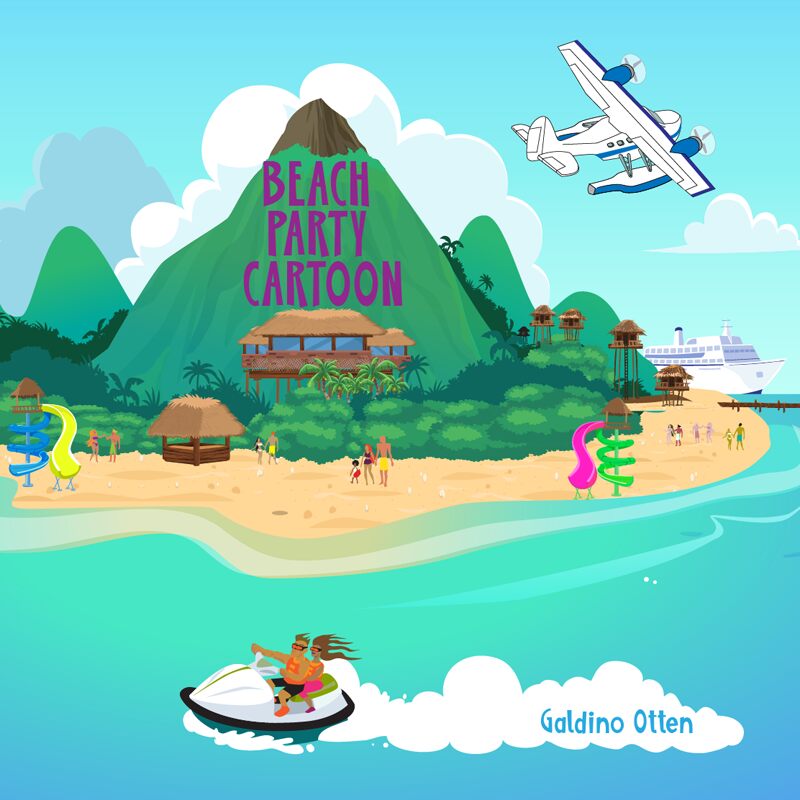
Beach Party Cartoon
Beach Party Cartoon, a vibrant and whimsical display font designed by Galdino Otten Fonts, captures the essence of a lively beach celebration. With its playful, condensed letterforms and organic, hand-drawn aesthetic, this font exudes a carefree and lighthearted charm. The bold, distinctive strokes and quirky, cartoon-inspired shapes lend a unique personality to any design, evoking a sense of fun and adventure.
The versatile nature of Beach Party Cartoon makes it a compelling choice for a wide range of design projects. Its eye-catching appearance makes it well-suited for attention-grabbing headlines, promotional materials, and branding initiatives that seek to convey a youthful, playful tone. Whether used in posters, packaging, or digital interfaces, this font has the ability to bring a touch of carefree energy and personality to any design.